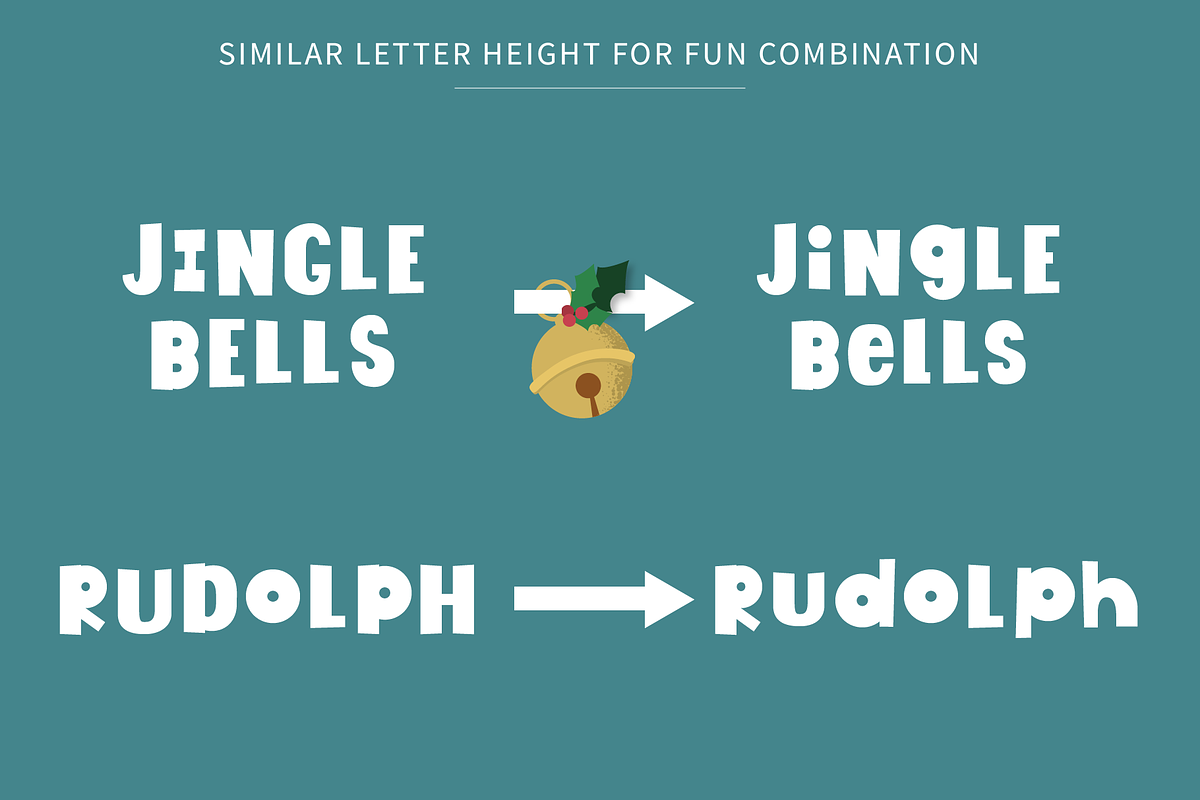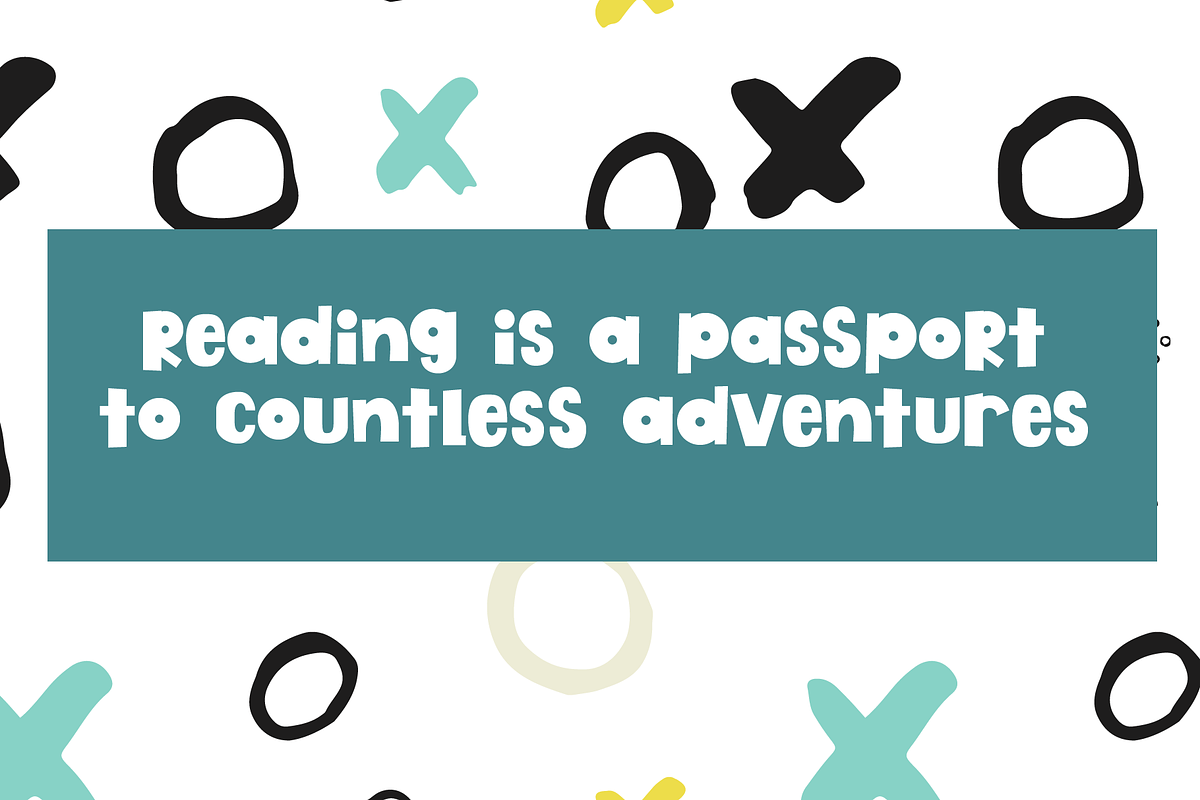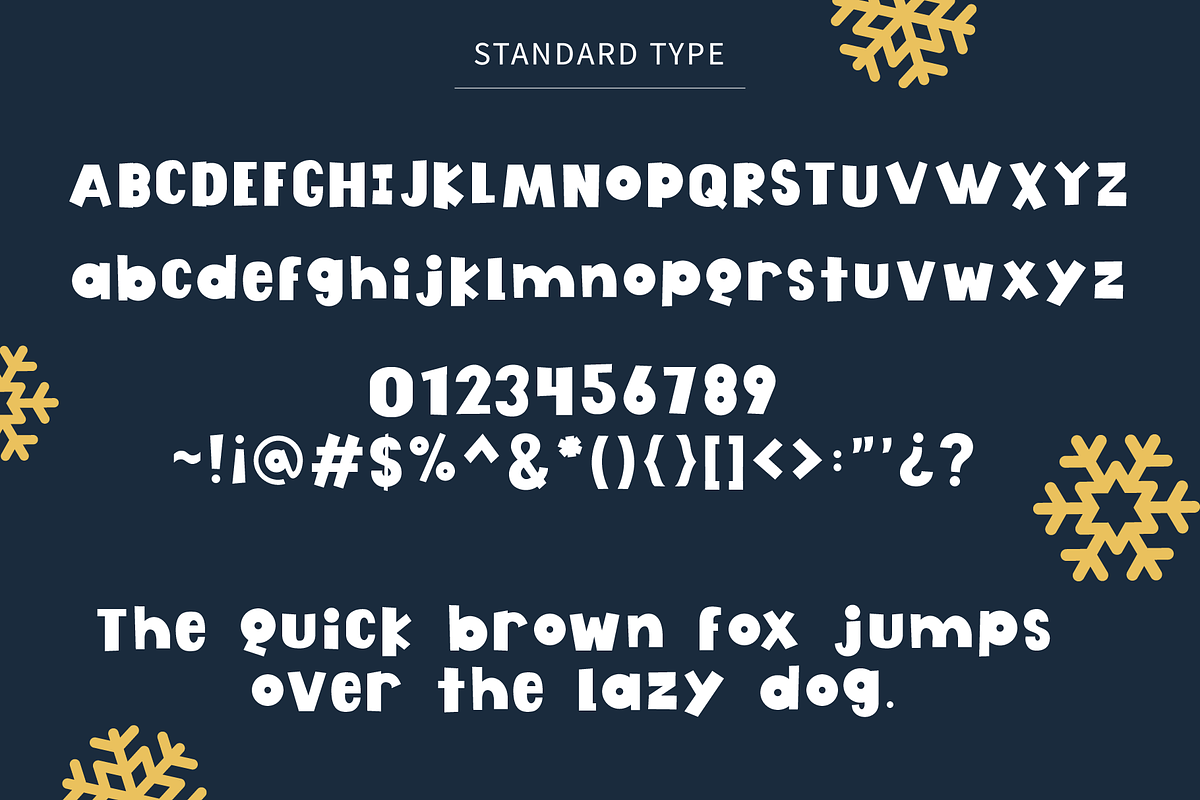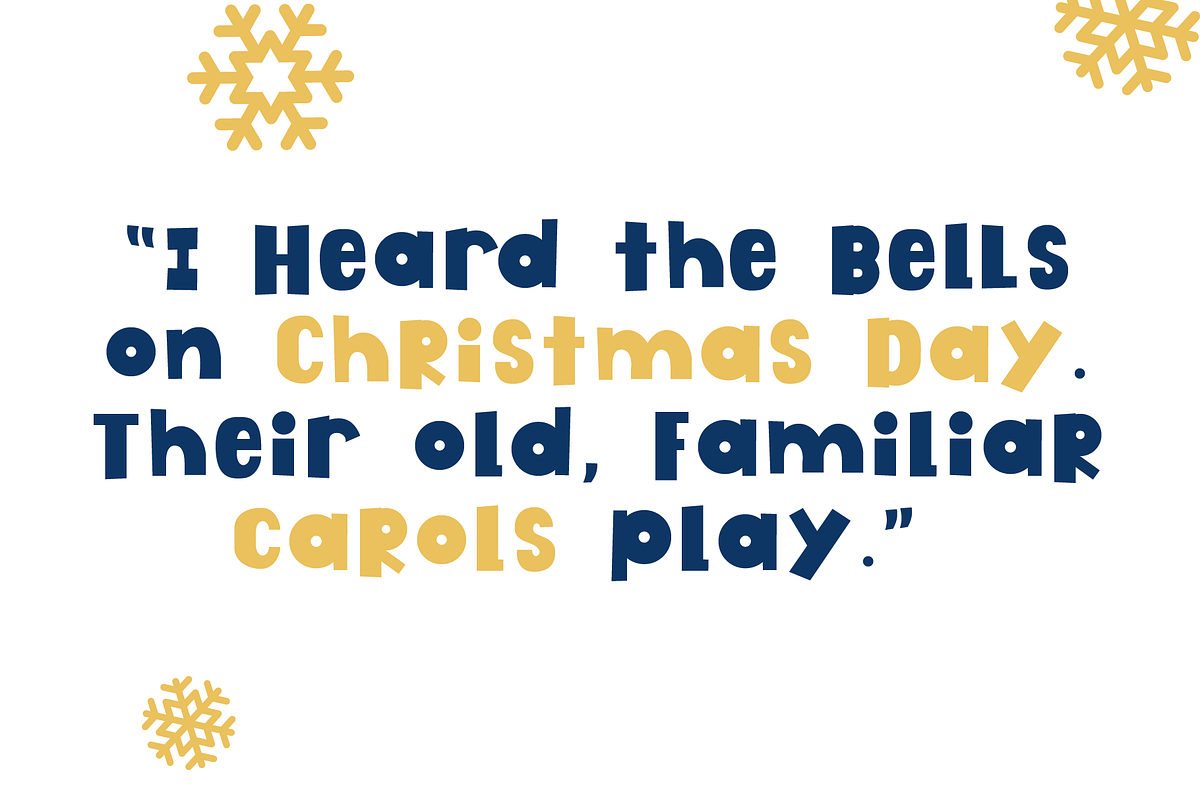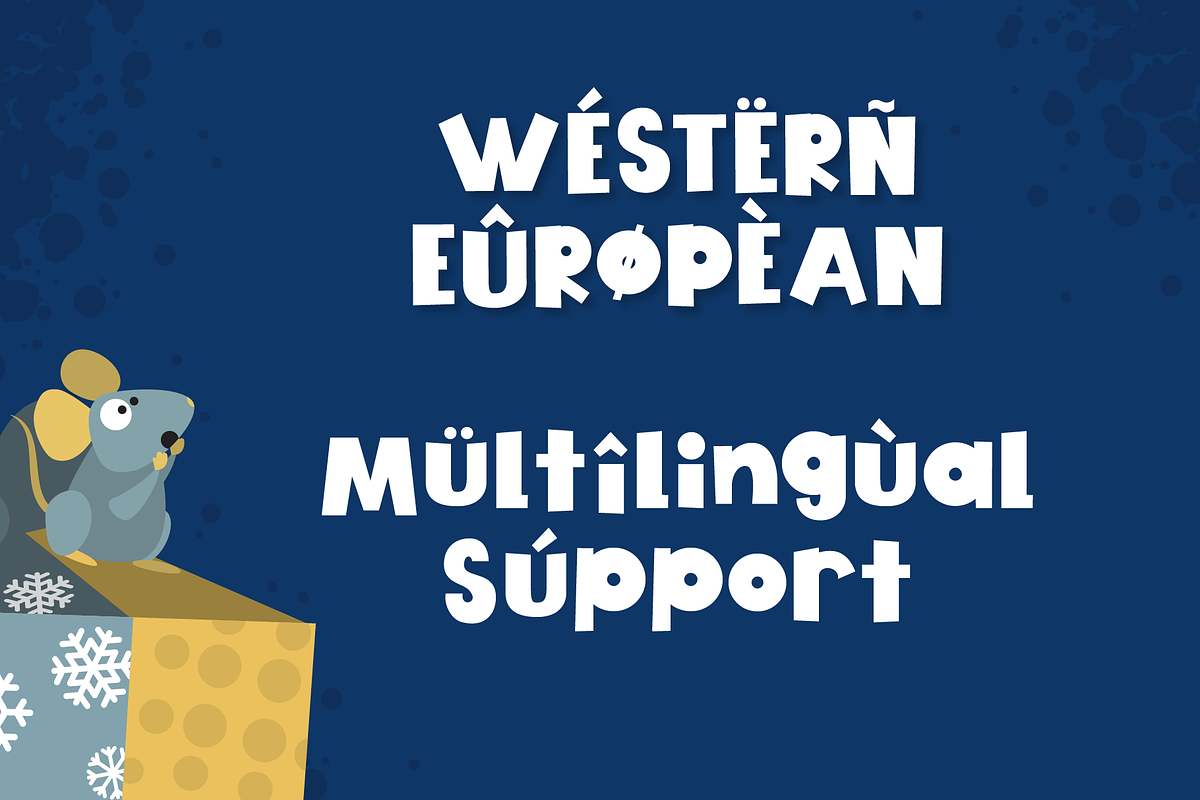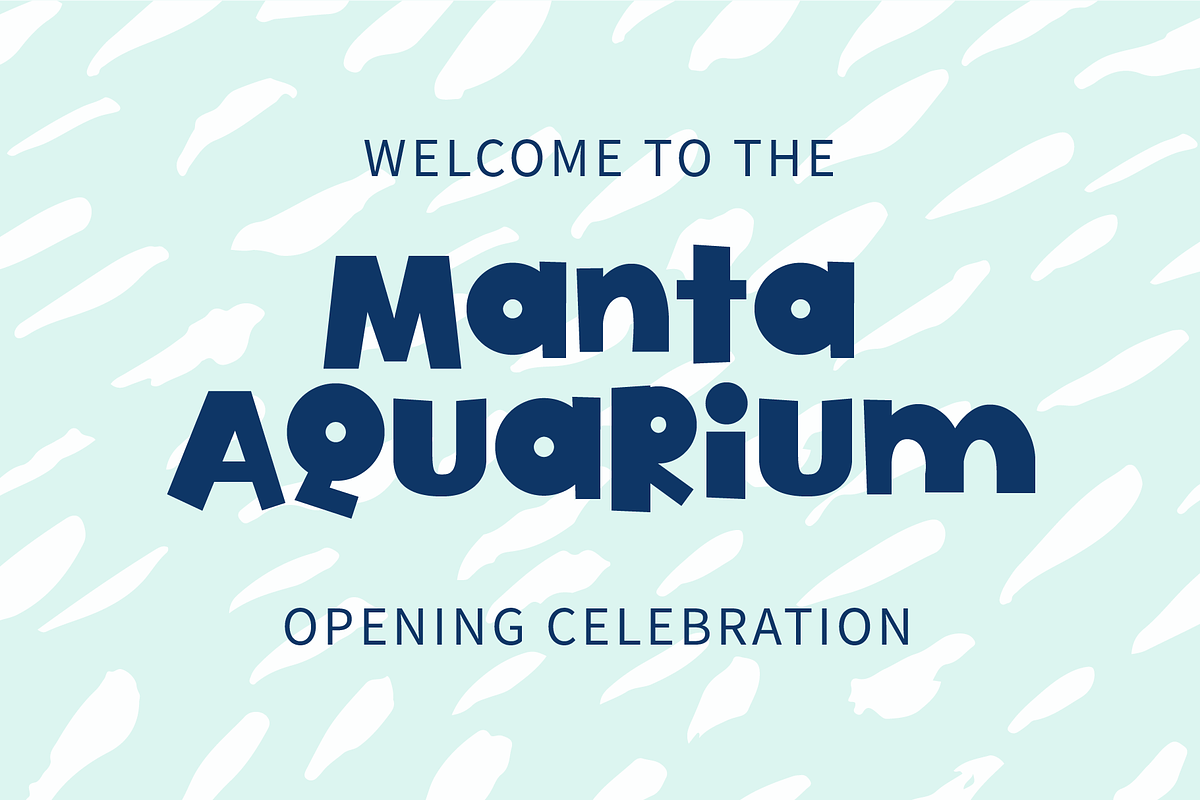
Jingle Box Bold Font
Introducing, Jingle Box!. I wanted to create a font that thick, bold, and fun. With its roundness and sharp corners, this font gives off a whimsical childlike message. This PUA font is perfect for professional designers, social media, or crafters.
Why Jingle Box Bold Font is worth a look
Jingle Box Bold Font by Tu Neuwin fits naturally into Branding, posters, packaging, typography.